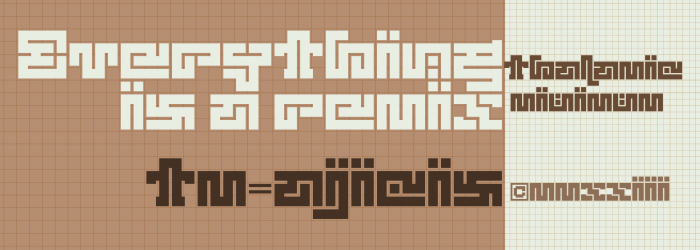
It's called ajicis because it is built upon the letters done for the wallpaper of Wipeout 3 game team AG Sys. It has the same grid structure but the letters look nothing like the original.
Also, this FS'tion was started on the phone (because I was too lazy to get off the bed and go to the computer). When I saw potential in the created letters, it was saved and opened on the iPad. The rest of the fs was done there. The only thing that couldn't be done on the iPad was adjusting of a composite brick. (It was fixed on the laptop days later.) So, 98% iPad.
The letter s kinda gives me chills..